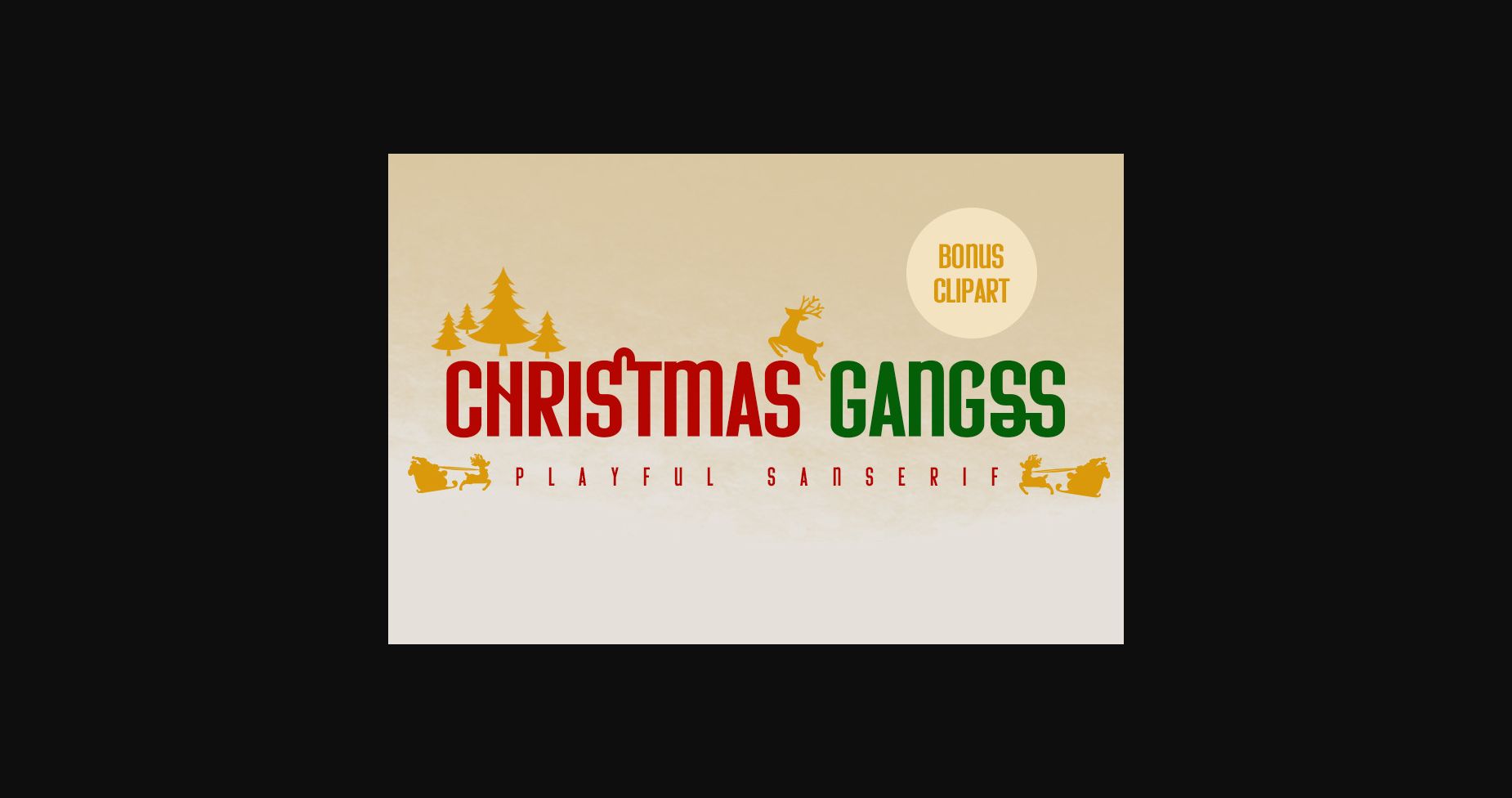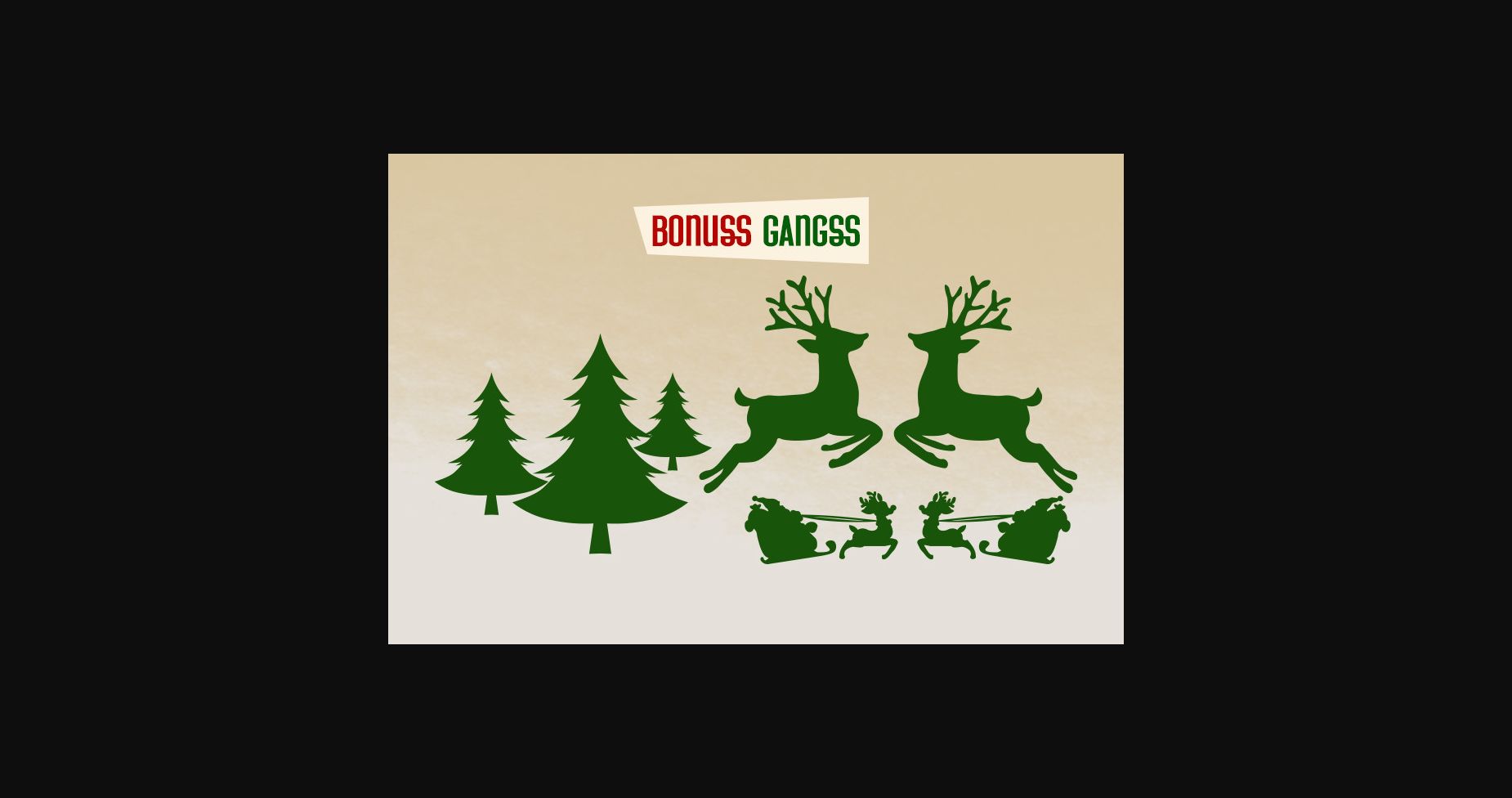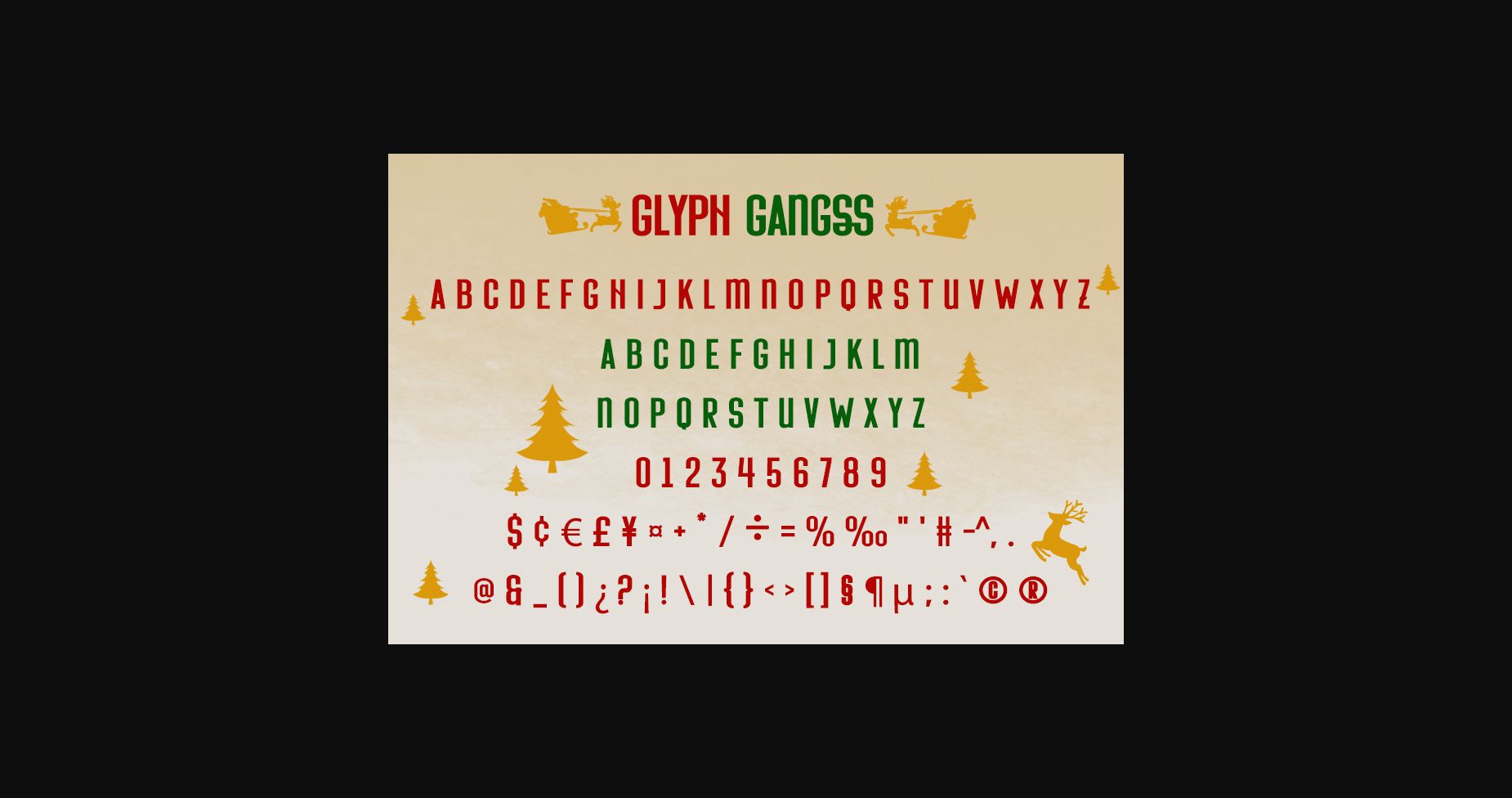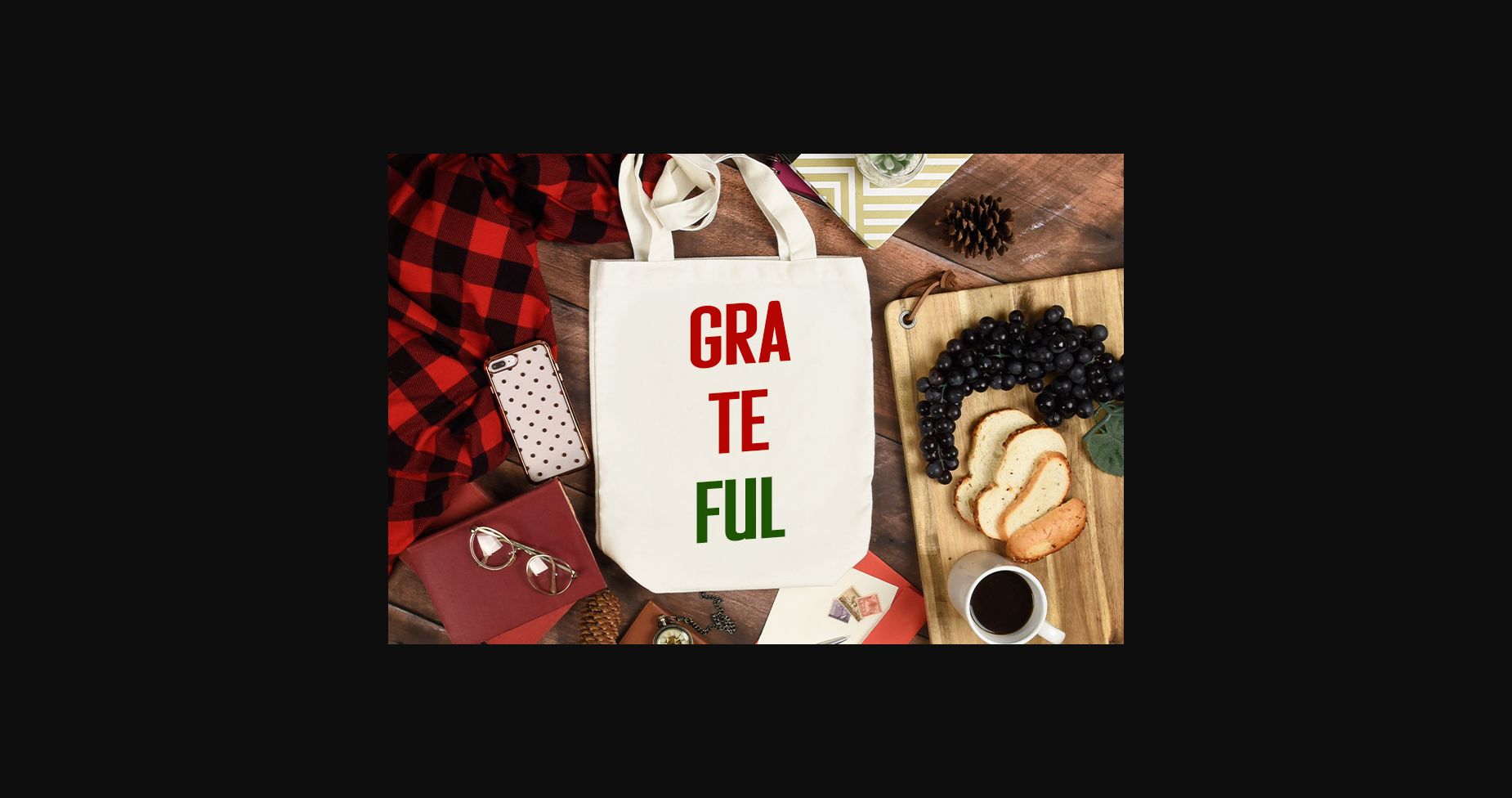
Christmas Gangss Font
About Christmas Gangss Font
Christmas Gangss is a simple and adaptable sans serif font. Whether you’re using it for crafting, digital designing, presentations or greeting cards making, it’s perfect!